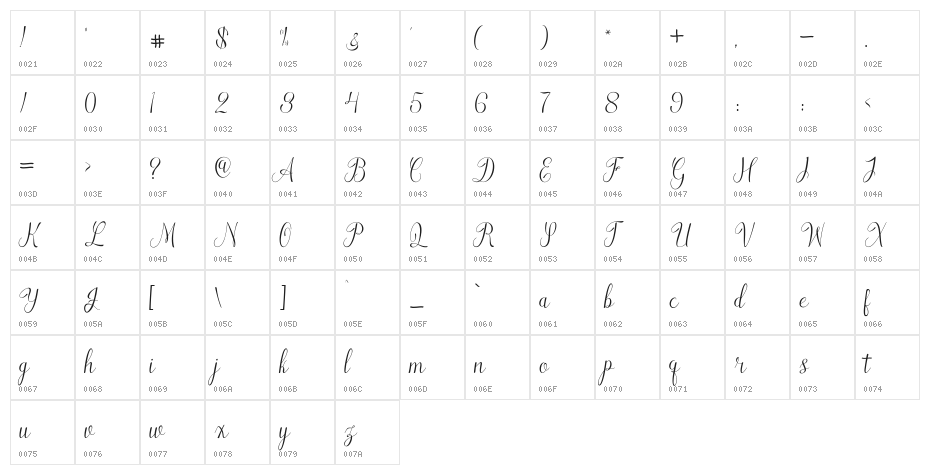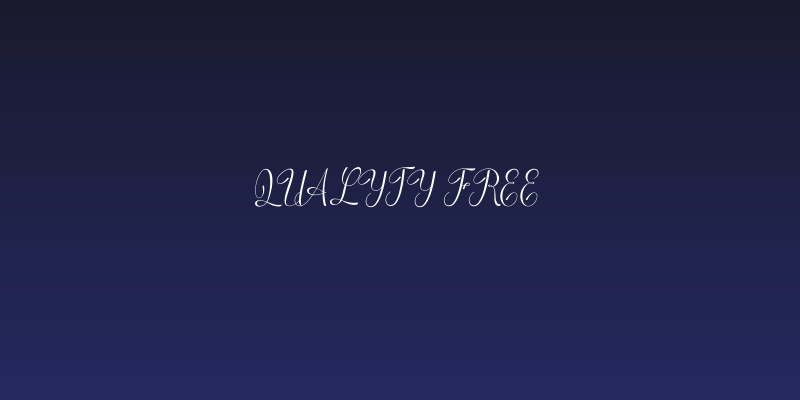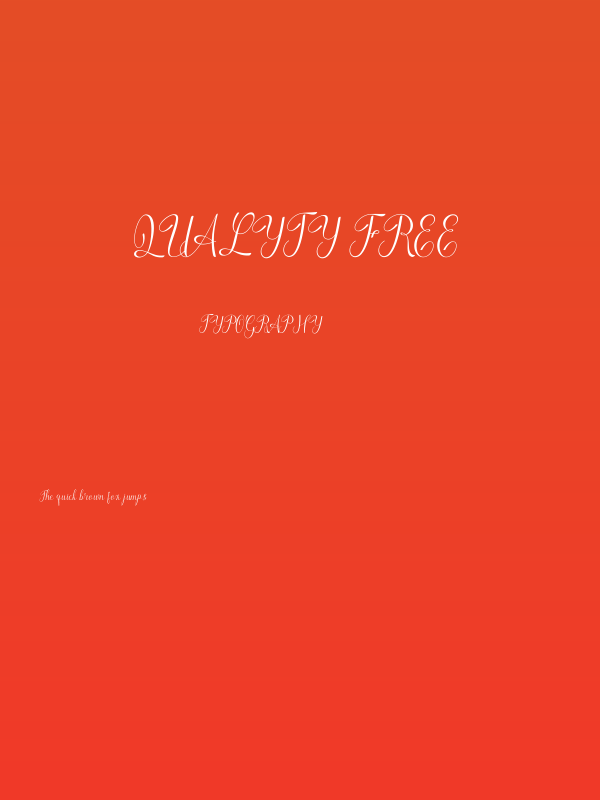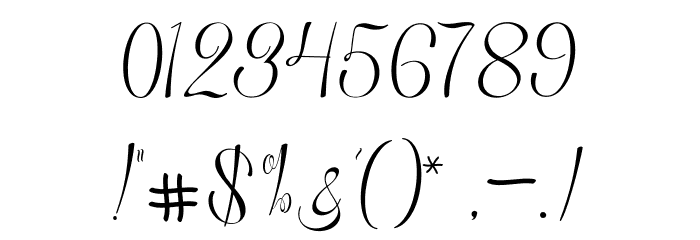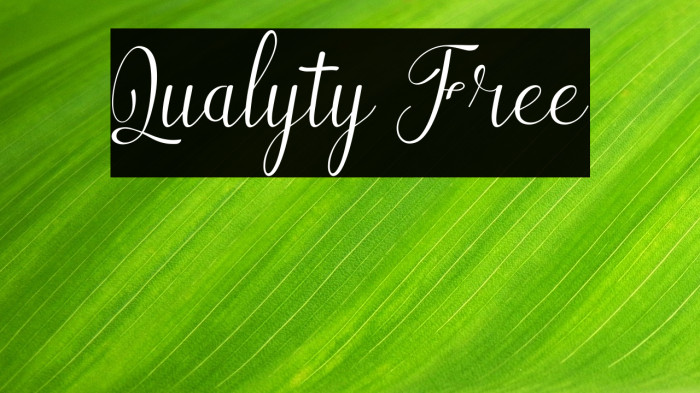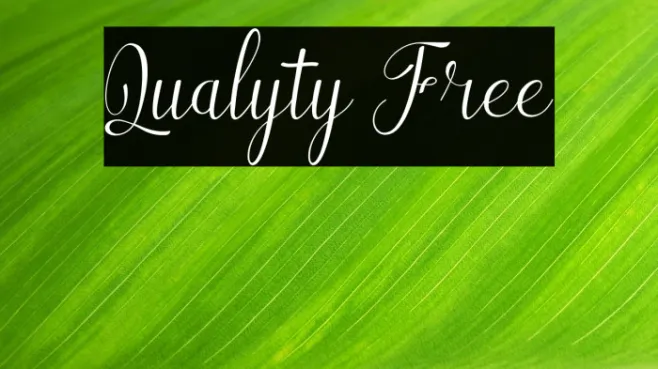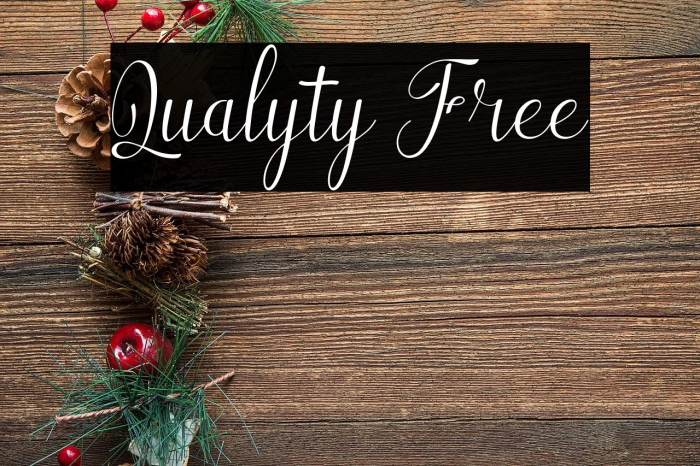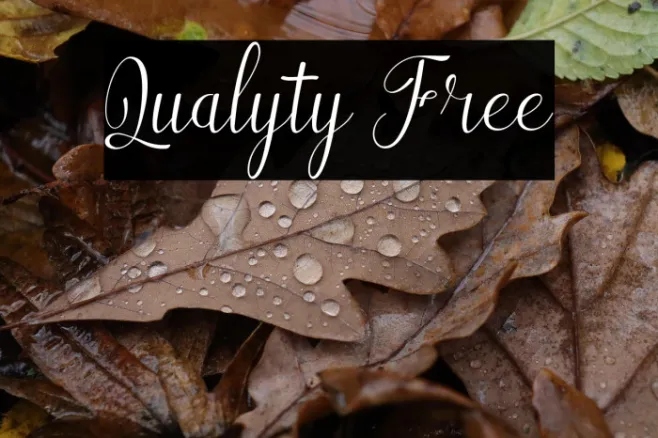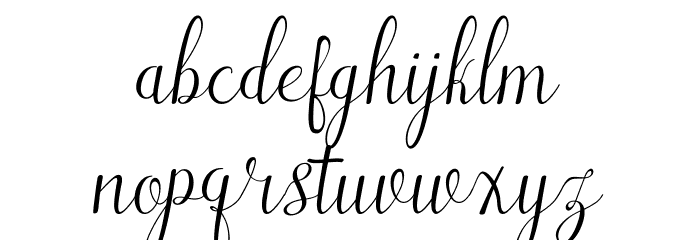
Qualyty Free Font
Qualyty Free Description
This elegant script font features flowing, cursive letterforms with a sophisticated and graceful appearance. The uppercase letters are particularly ornate, with intricate loops and swashes that add a touch of luxury and refinement. The lowercase letters maintain a consistent style, offering a seamless connection between characters, which enhances readability while preserving the decorative nature. The numerals and special characters are designed to match the overall aesthetic, ensuring a cohesive look across all text. This font's delicate strokes and high contrast between thick and thin lines give it a dynamic and lively feel, perfect for adding a personal touch to any design.
| Proposed Projects | Ideal for wedding invitations, elegant branding, luxury product packaging, and personal stationery. |